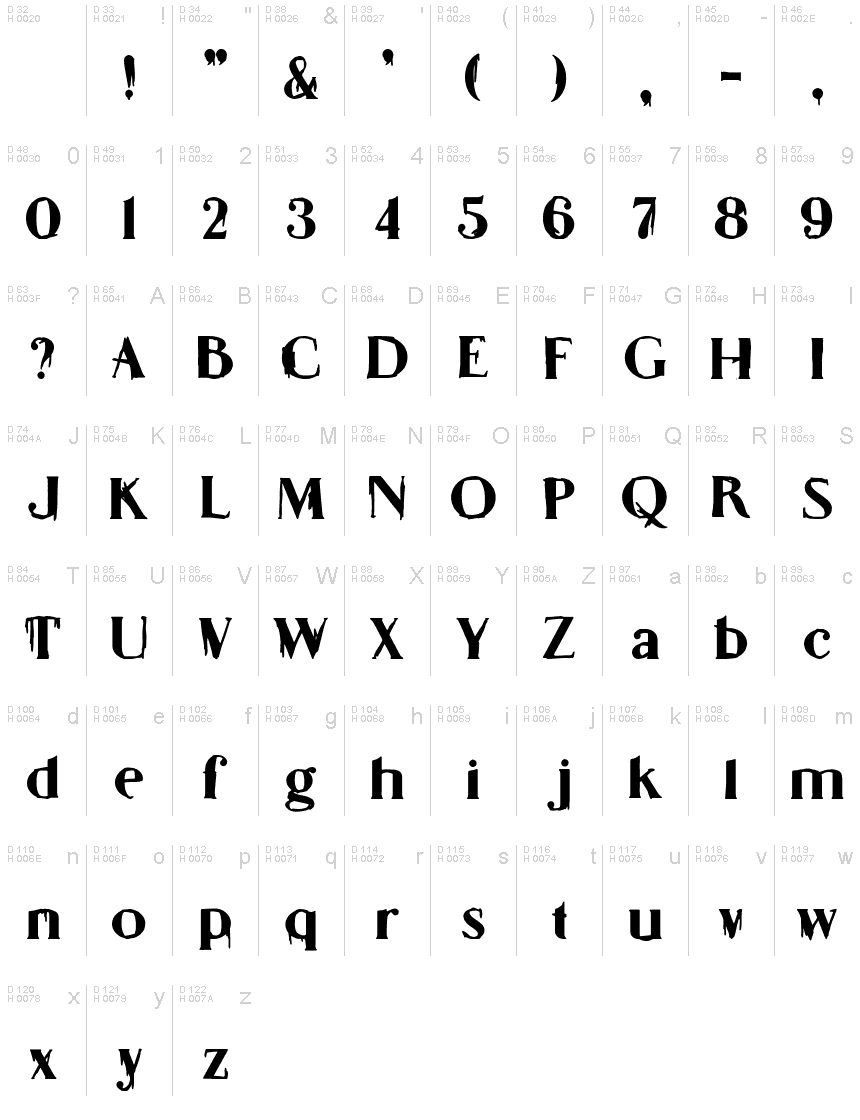
Extreme Fine Club
Extreme Fine Club font by Woodcutter Manero is a bold display typeface that will add an edgy and distorted vibe to any project. The thick, exaggerated strokes of Extreme Fine Club make it perfect for posters, album covers, and apparel designs. This versatile font is suitable for any project that demands attention-grabbing typography. Its unique style makes it ideal for branding projects, packaging designs, and even social media graphics. Whether you're looking to create a grunge-inspired design or add an urban touch to your next project, Extreme Fine Club is the perfect choice for you!